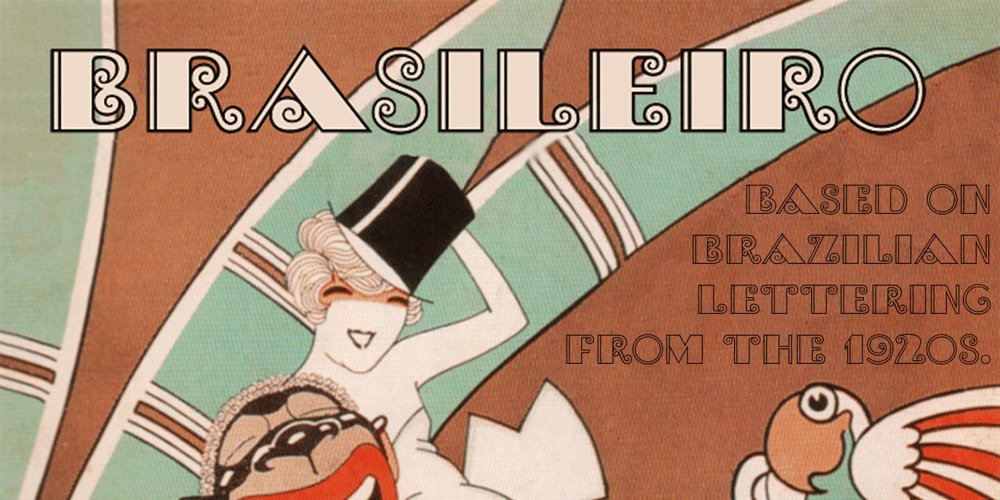
Brasileiro Font Family was designed by Jason Castle and published by CastleType. Brasileiro contains 1 styles and family package options. Brasileiro, a CastleType Original, is a new art deco design inspired by the seven letters used for the masthead of the Brazilian magazine ‘Para Todos’ from the 1920s. Described as “great fun” and “nova e exuberante”, Brasileiro captures the playful and joyful spirit of Brazil. Contains some alternates in the lowercase position, extensive language support for Latin and Cyrillic languages, and much more.